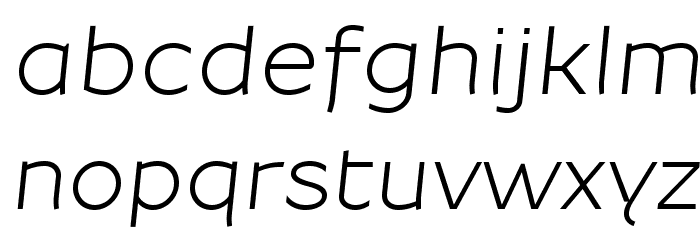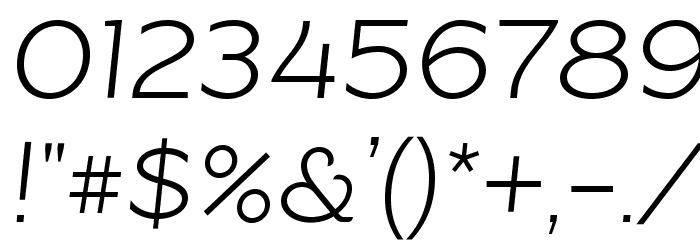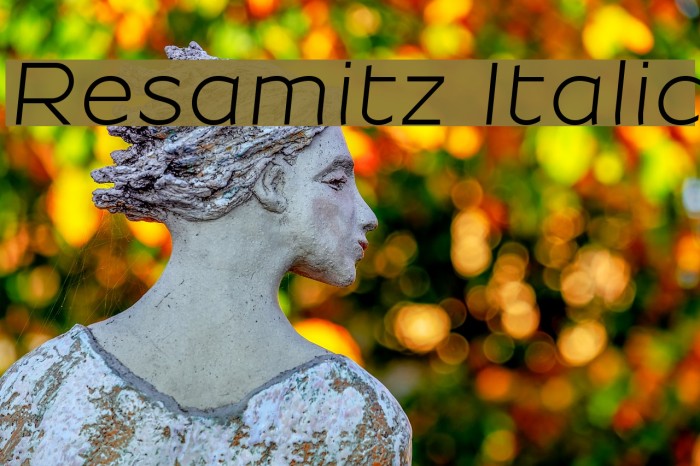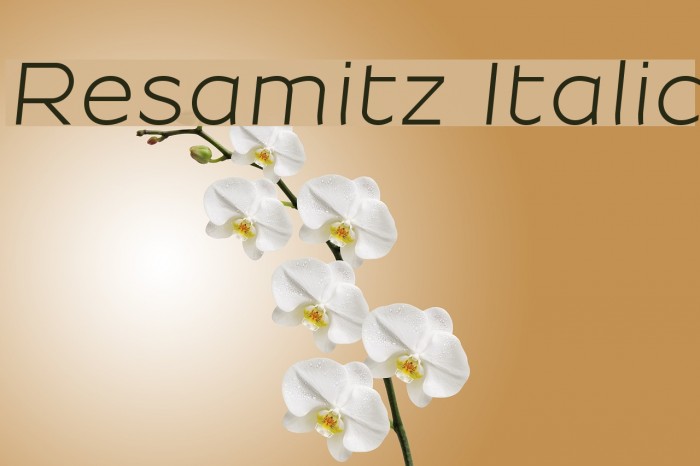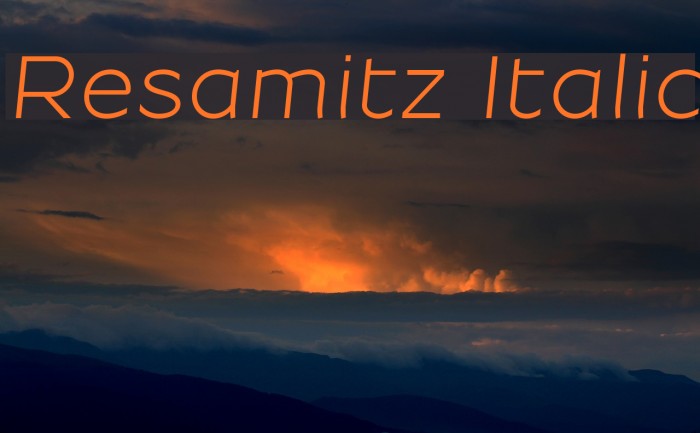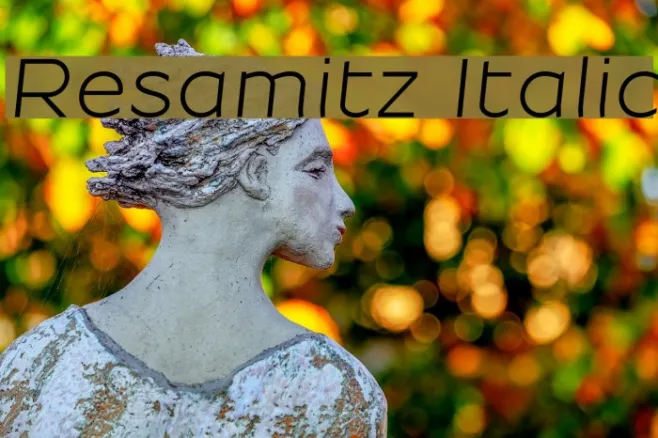
Resamitz Italic Font
This font features a sleek, modern design with clean lines and a slight slant, giving it an elegant and contemporary feel. The characters are well-proportioned, with a consistent stroke width that maintains readability while adding a touch of sophistication. The uppercase letters are bold and assertive, while the lowercase letters offer a softer, more approachable look. The numerals are clear and distinct, making them suitable for various applications. Special characters are well-integrated, maintaining the overall aesthetic of the font. This typeface is versatile, suitable for both digital and print media, and can be used in a variety of design projects.
A sleek, modern italic font with clean lines and a sophisticated style.
- Proposed Projects: Ideal for branding, editorial design, advertising, and web design projects.